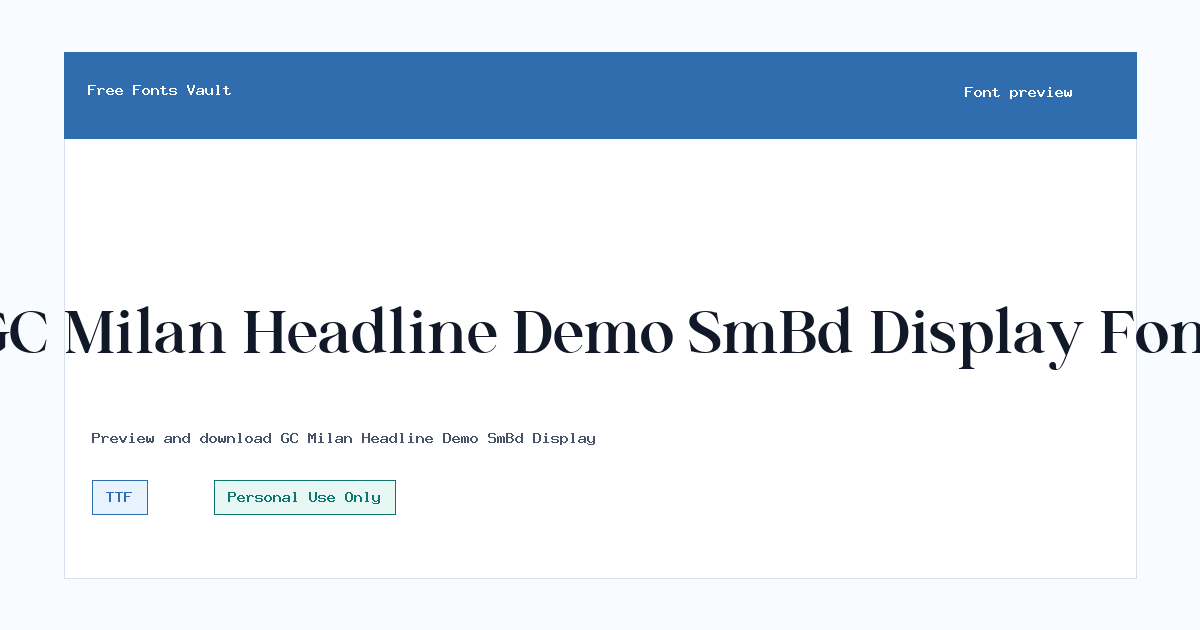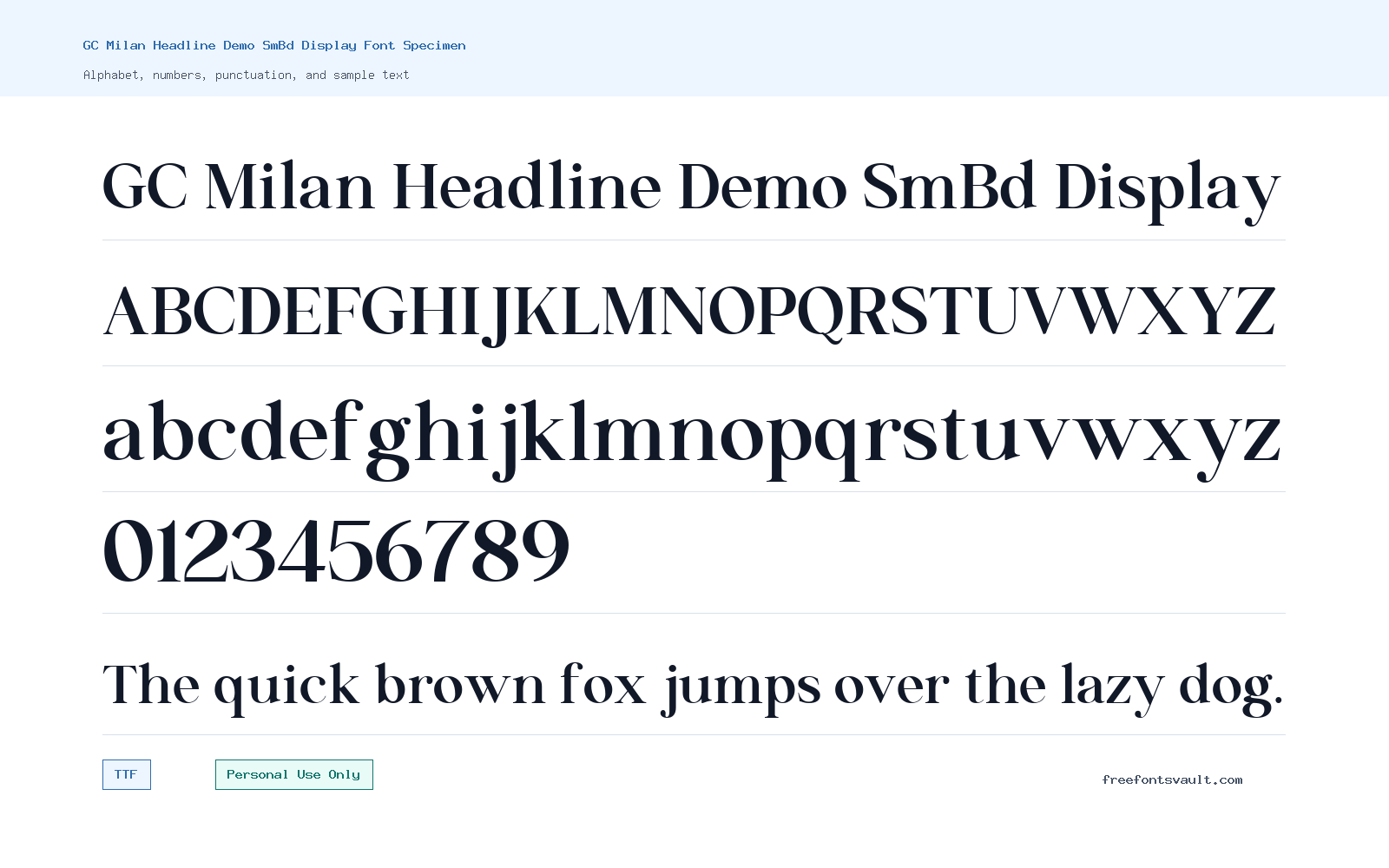
GC Milan Headline Demo SmBd Display
- Designer Zainaldi Ibrahim of Glyphonic
GC Milan Headline Demo SmBd Display font.
GC Milan Headline Demo SmBd Display is a headline-focused serif font with a confident display style. It is best treated as a title face: strong enough for short, prominent text, but not meant to carry long reading sections.
About GC Milan Headline Demo SmBd Display
GC Milan Headline Demo SmBd Display has the kind of structure that works well when a word or phrase needs clear emphasis. The “Headline” and “Display” naming points to its intended role, while the SemiBold feel gives it more presence than a light text face without making it feel overly heavy. Use it where the font can be seen at a generous size, such as a hero title, poster heading, editorial opener, logo draft, packaging mockup, or social graphic. It can give short text a polished serif tone while still keeping the layout readable.
For best results, test it with the exact words you plan to use before downloading. Display fonts often behave differently across uppercase words, mixed-case names, punctuation, and tight spacing. Try your brand name, article title, event heading, or product label in the preview box and check the spacing between letters. If the design feels too dense in all caps, use title case or add a little tracking in your design app. Pair it with a quiet sans serif or a plain text serif for body copy so the headline remains the main visual feature. Avoid using it for paragraphs, small captions, legal text, or dense UI labels, because a display cut is made for impact rather than long-form reading comfort.
- Headline serif style with a SemiBold display weight suited to short, prominent text.
- Editorial headlines, poster titles, website hero text, and social media graphics.
- Brand mockups, packaging concepts, invitations, and short display phrases.
GC Milan Headline Demo SmBd Display is credited to Zainaldi Ibrahim of Glyphonic.
What kind of font is GC Milan Headline Demo SmBd Display?
It is a headline and display serif font. It is better for titles and short phrases than for long paragraphs.
What should I pair it with?
Pair it with a simple sans serif or a restrained text serif. Let GC Milan Headline Demo SmBd Display handle the headline while the companion font handles paragraphs and smaller details.